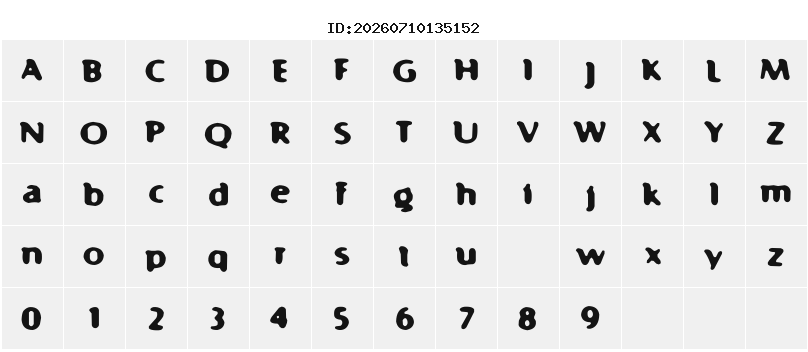
Fast 99 Preview
• Font Name: Fast 99
• Font ID: Fast 99
• Full Font Name: Fast 99
• PostScript Name: Fast99
About Fast 99.ttf
Fast 99.ttf is a modern, elegant sans-serif font designed for ultimate readability and visual harmony. Perfect for branding, headlines, web design, and print materials.